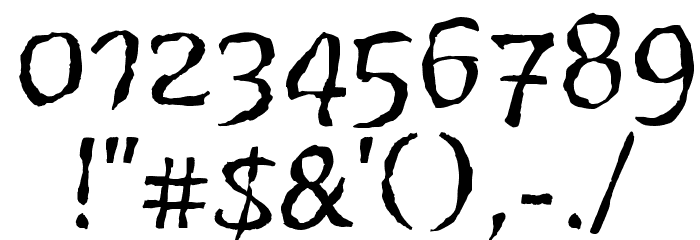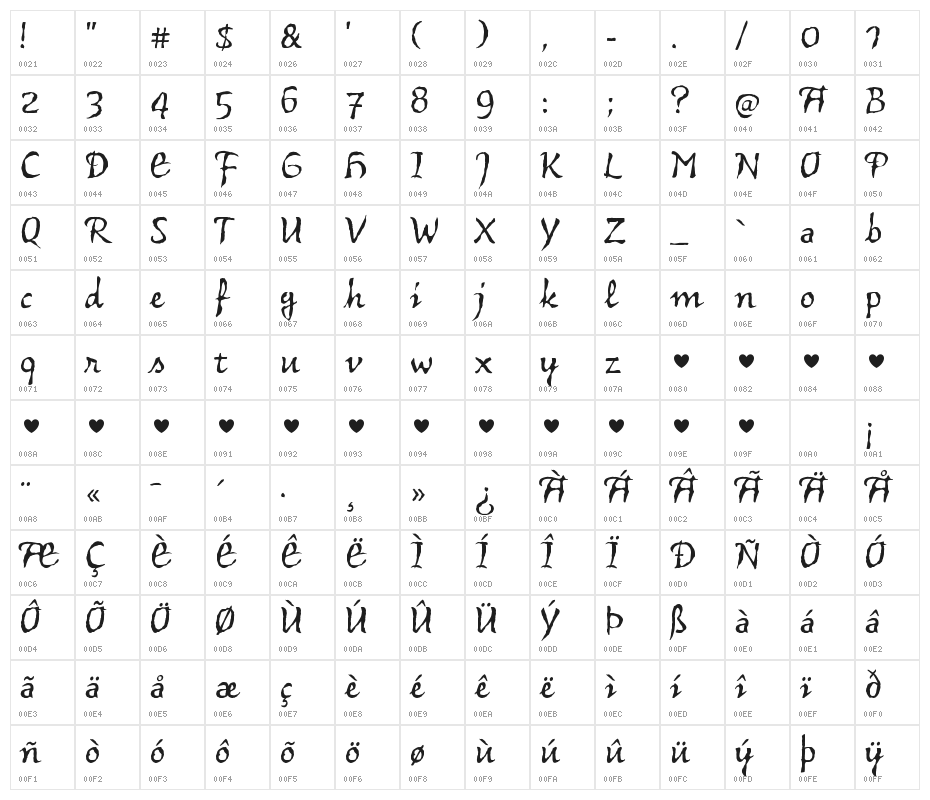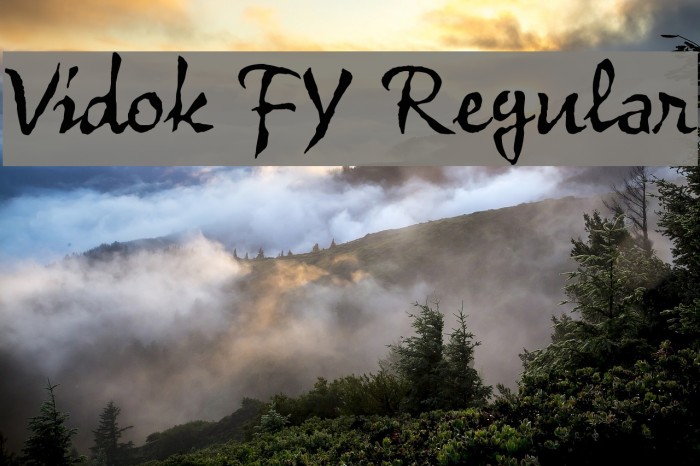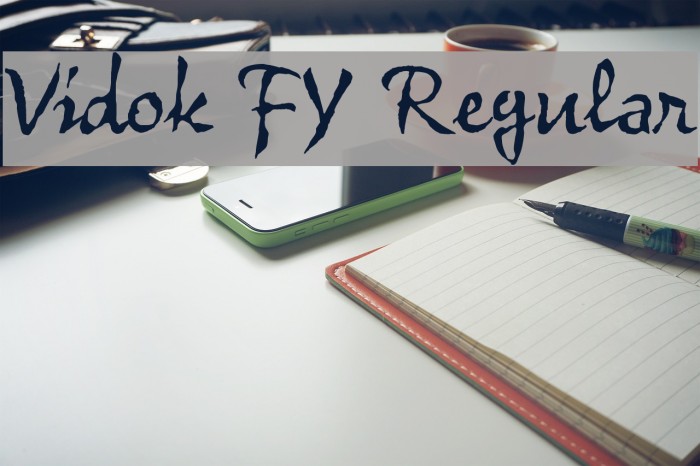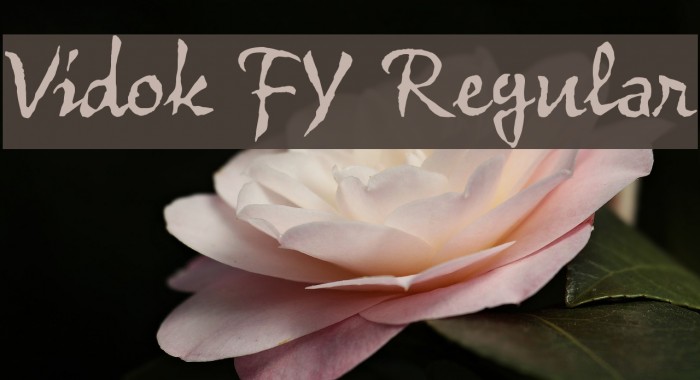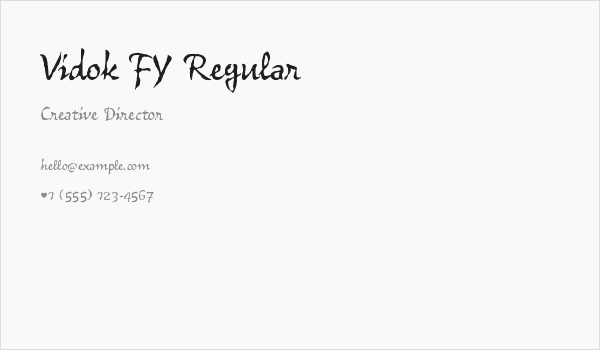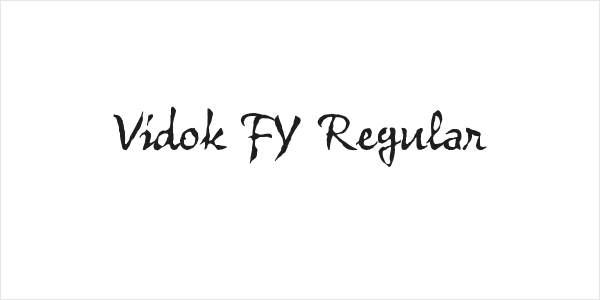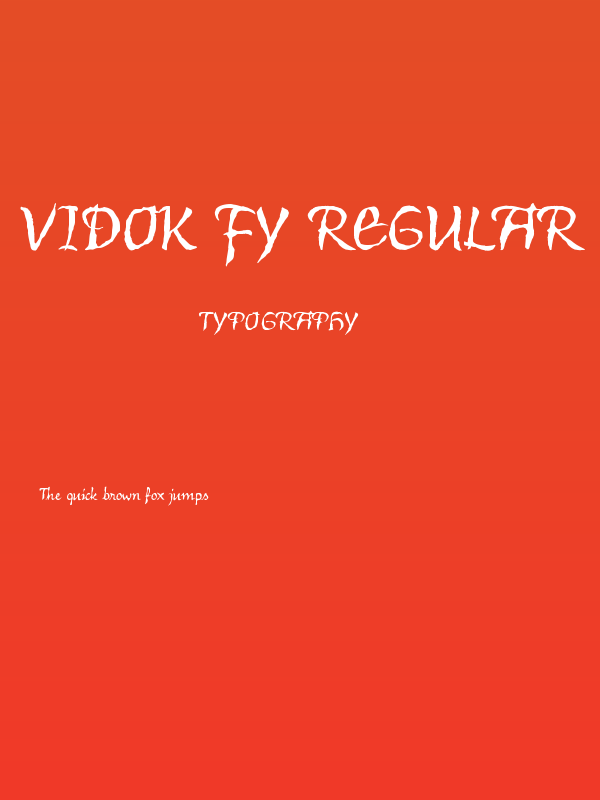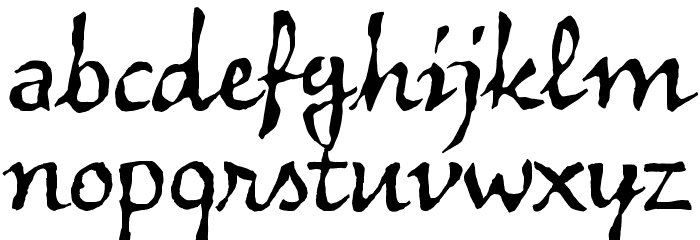
Vidok FY Regular Font
This font features a distinctive, hand-drawn style that evokes a sense of historical or medieval script. The characters are irregular and organic, with varying stroke widths that give it a dynamic and lively appearance. The uppercase letters are bold and assertive, while the lowercase letters maintain a consistent flow, enhancing readability. The numerals and special characters are crafted with the same attention to detail, ensuring a cohesive look across all elements. This font's unique character makes it suitable for projects that require a touch of elegance and tradition.
Overall StyleVintage
Use CaseLogos, Headlines, Decorative text
Proposed ProjectsIdeal for invitations, historical documents, fantasy-themed designs, and branding that requires a traditional touch.